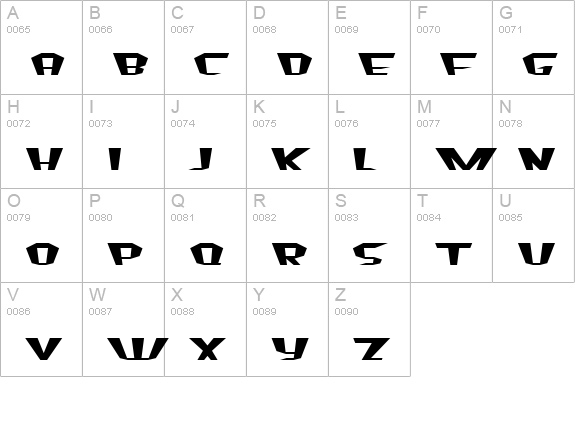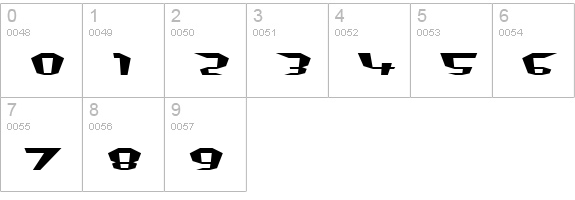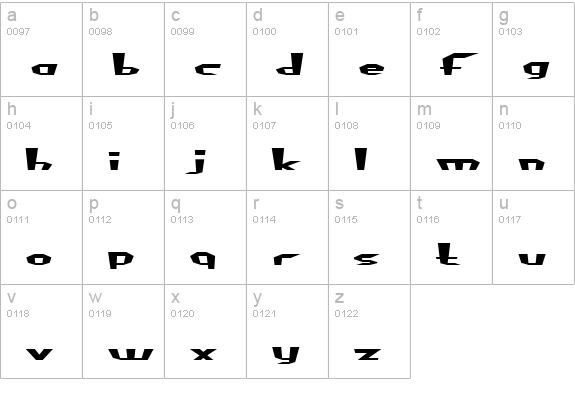
Fluoride Beings Font Details
The Fluoride Beings font is a unique and eye-catching typeface that exudes a sense of modernity and sophistication. With its sleek lines and geometric forms, this font is perfect for adding a touch of elegance to any design project. Its sharp edges and clean letterforms give it a futuristic and cutting-edge look that will make your text stand out. What sets Fluoride Beings font apart is its versatility - it can be used for a wide range of design applications, from logos and branding to posters and social media graphics. Whether you're creating a sleek and professional business card or a bold and striking website header, this font has got you covered. And the best part? Fluoride Beings font is completely free to download at FontsMarket.com! So you can elevate your design projects without breaking the bank. Don't miss out on this opportunity to add a touch of modern sophistication to your designs with the Fluoride Beings font.